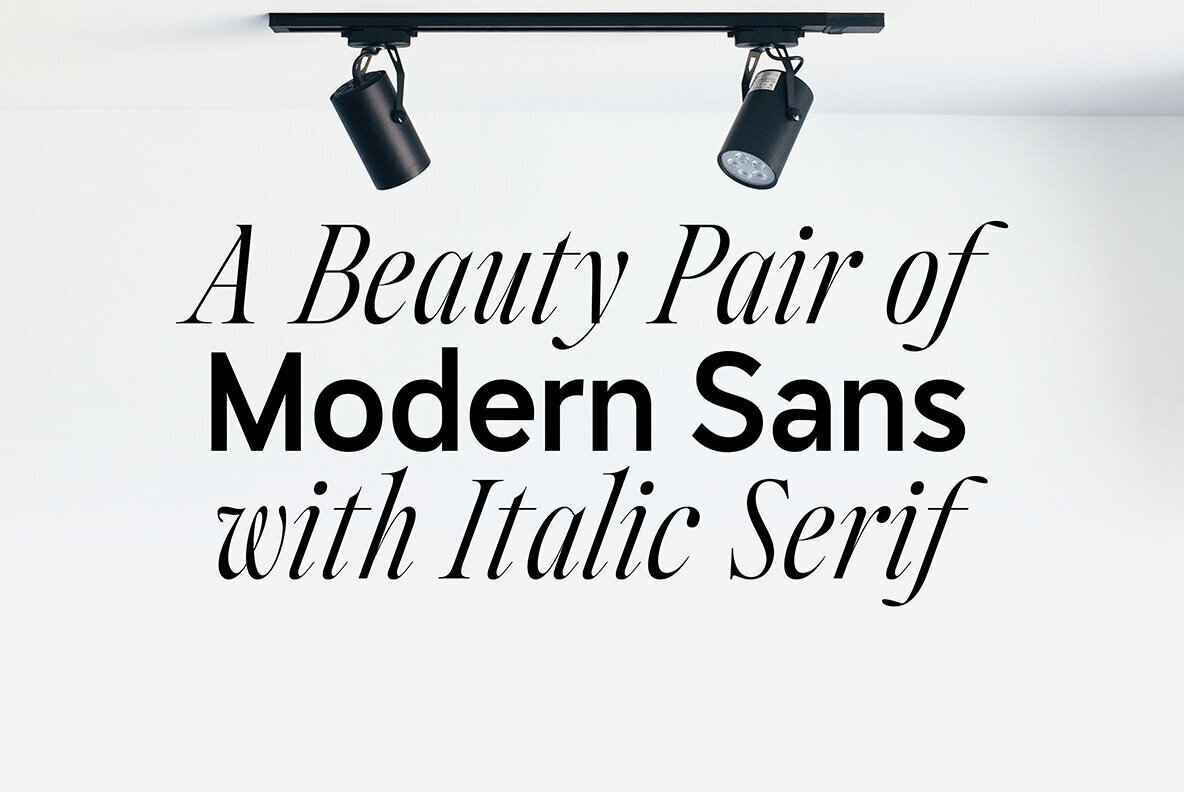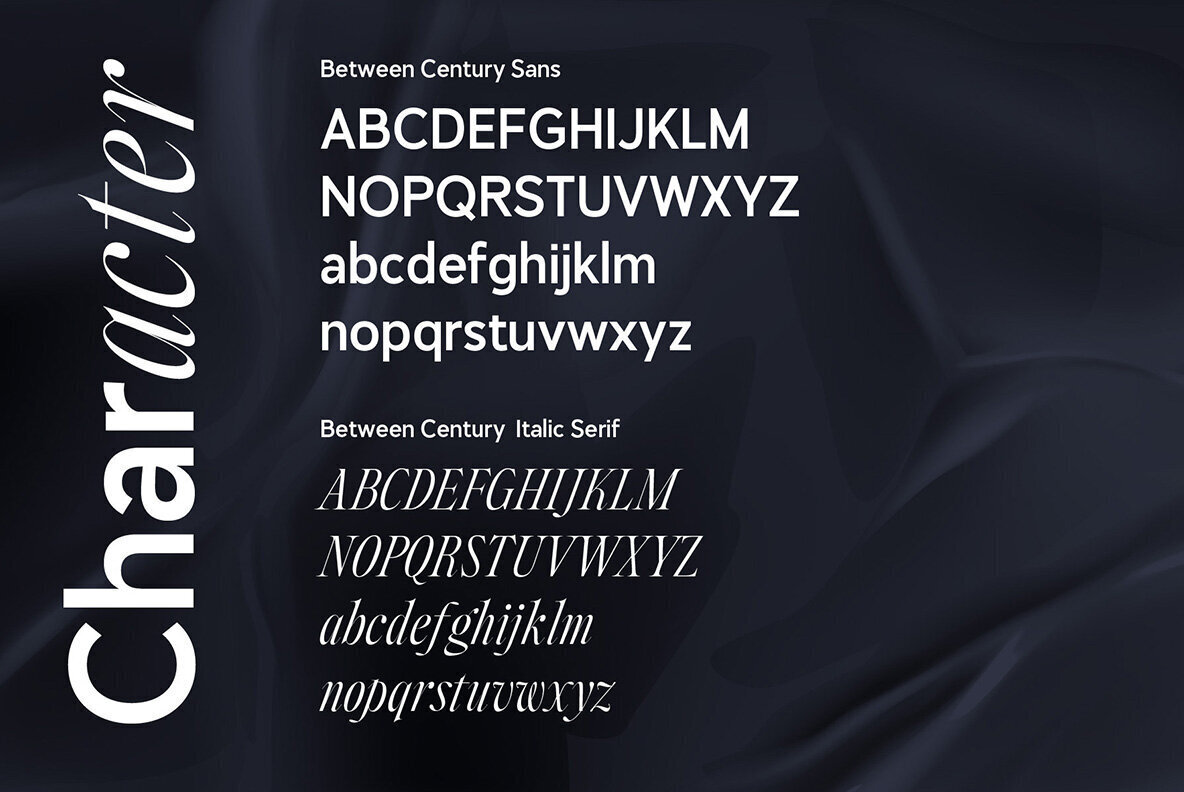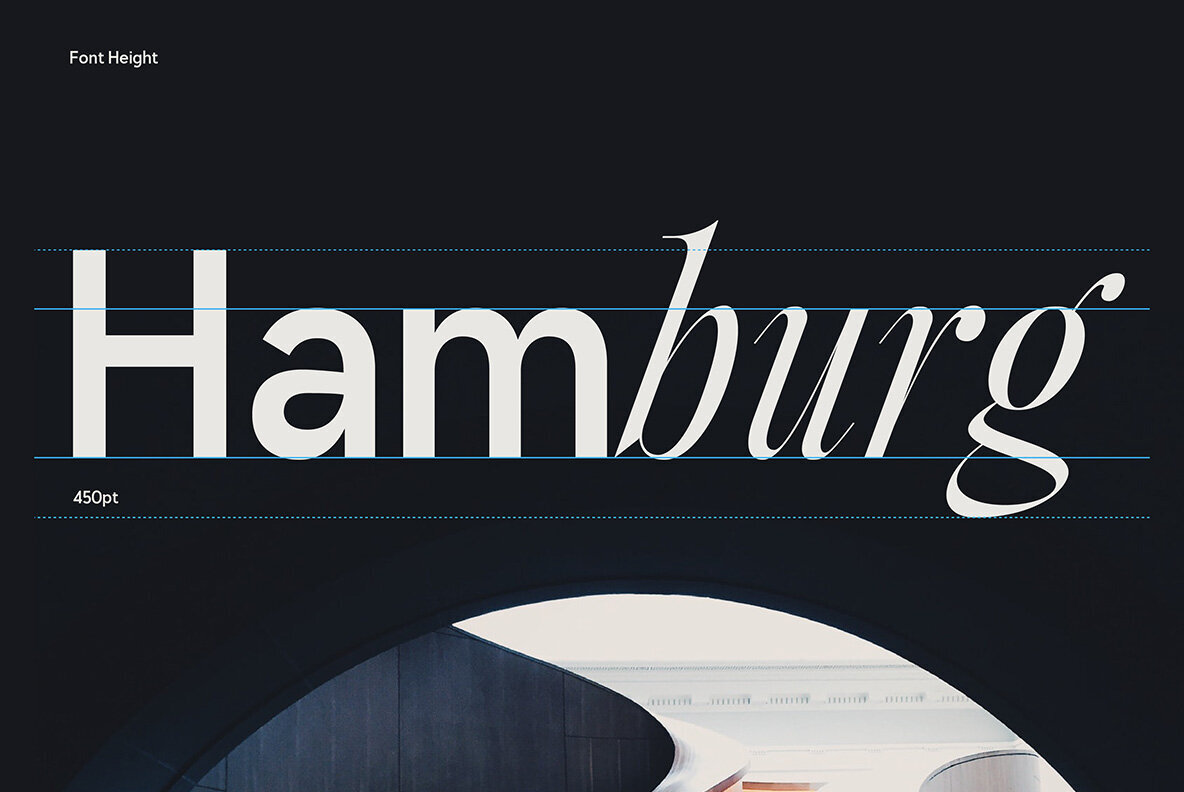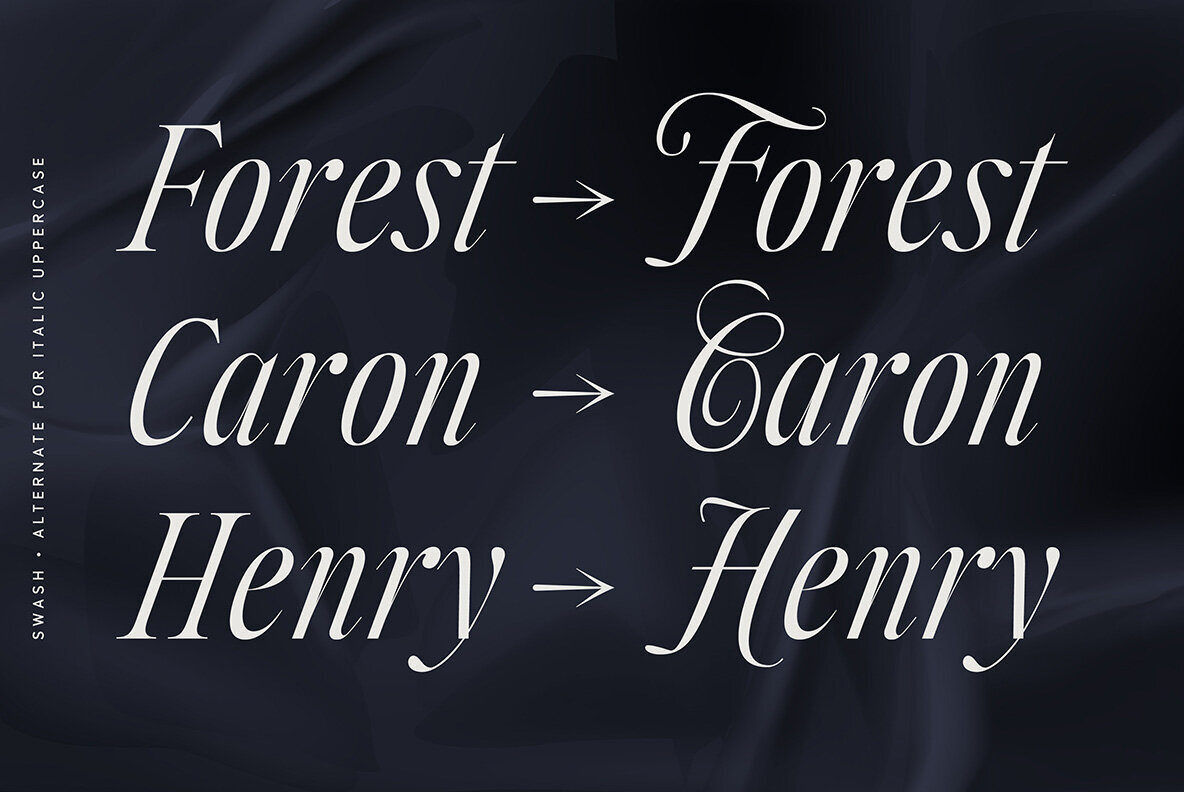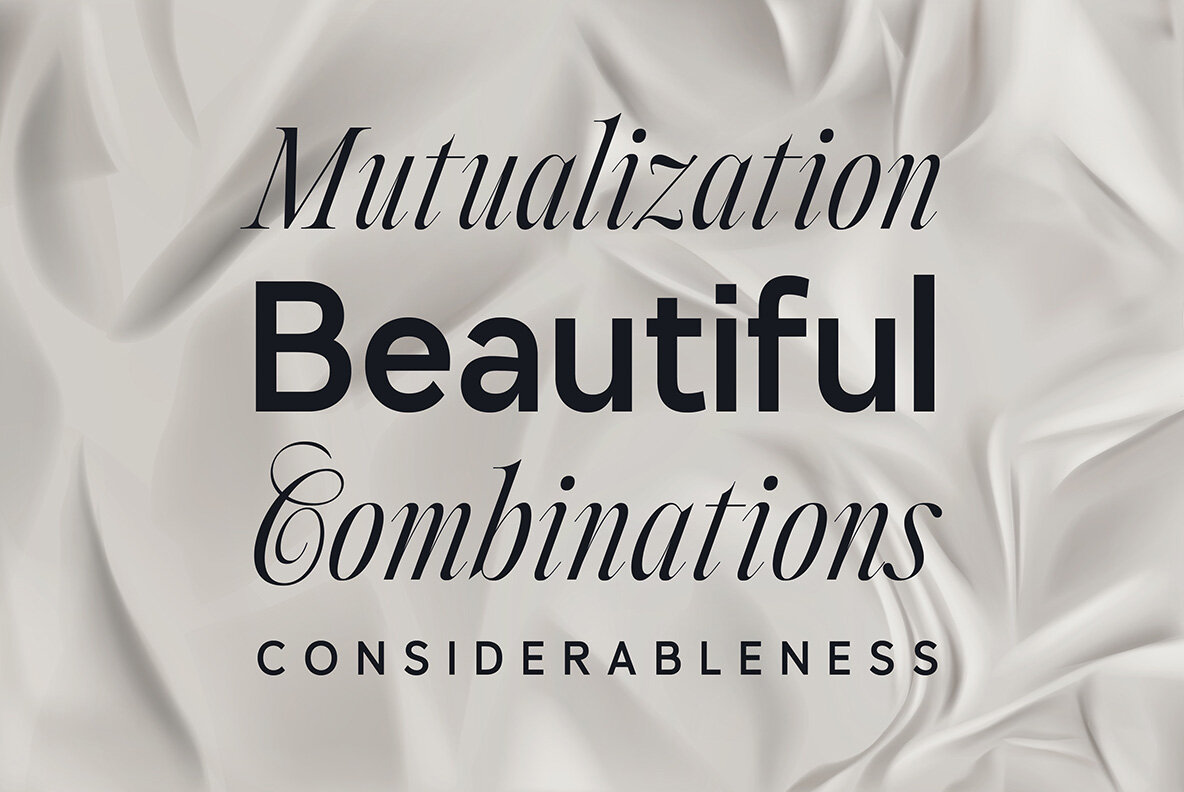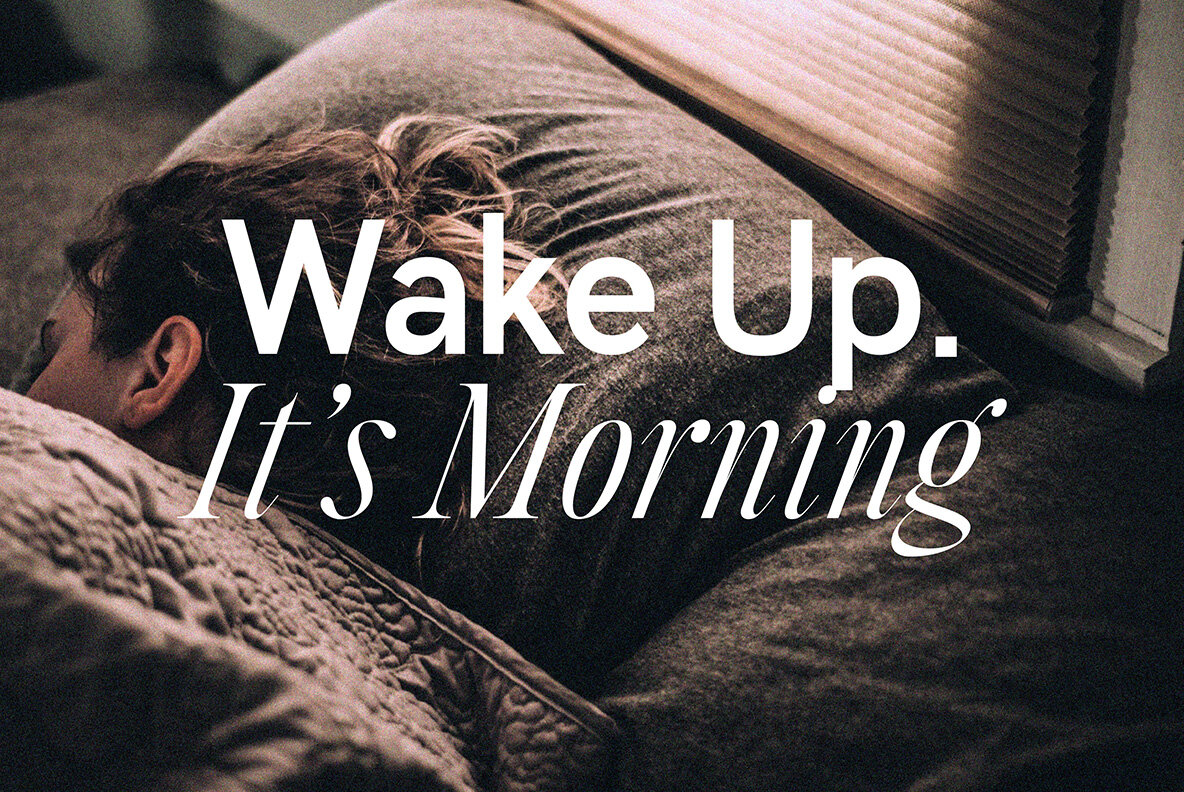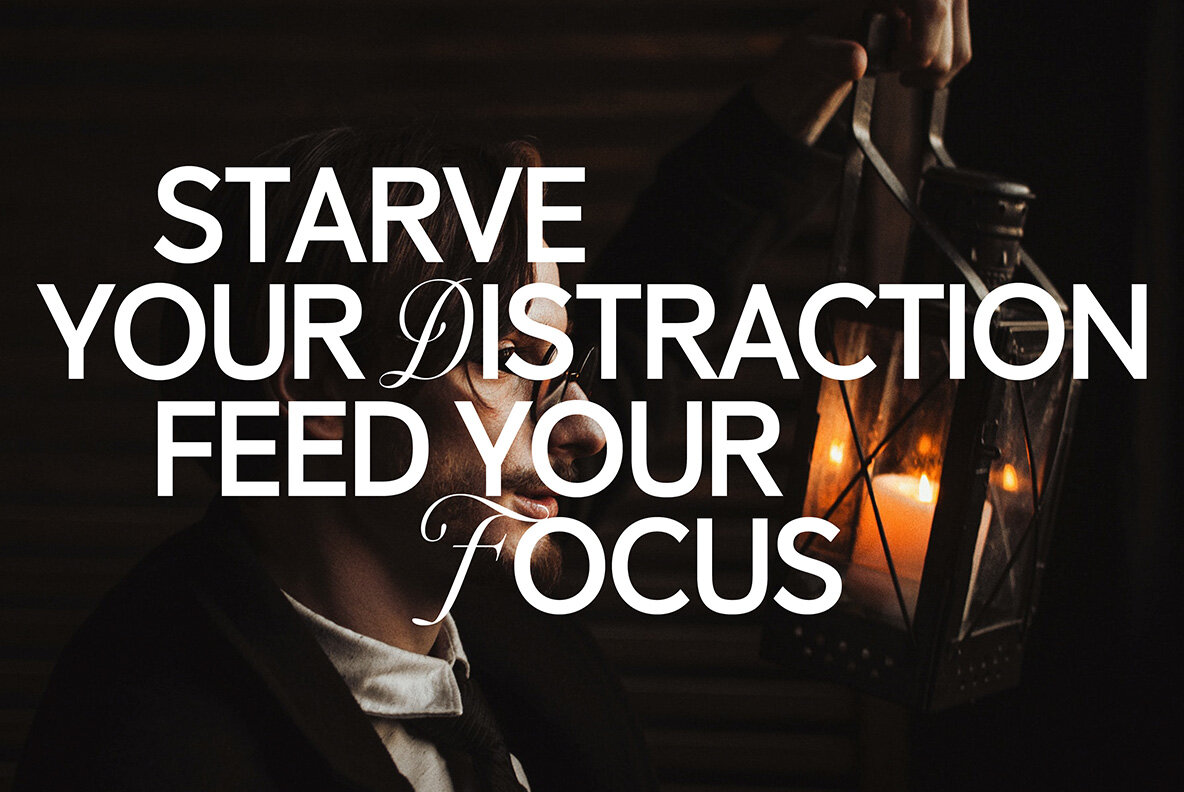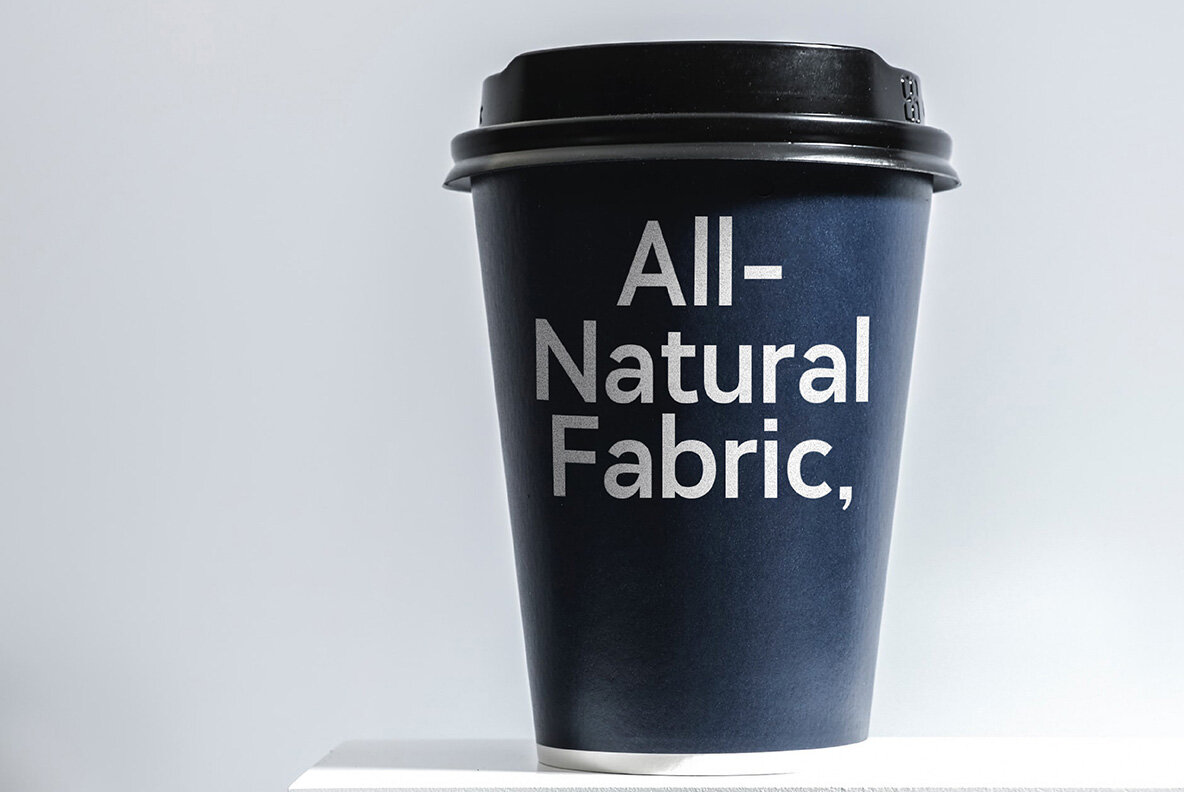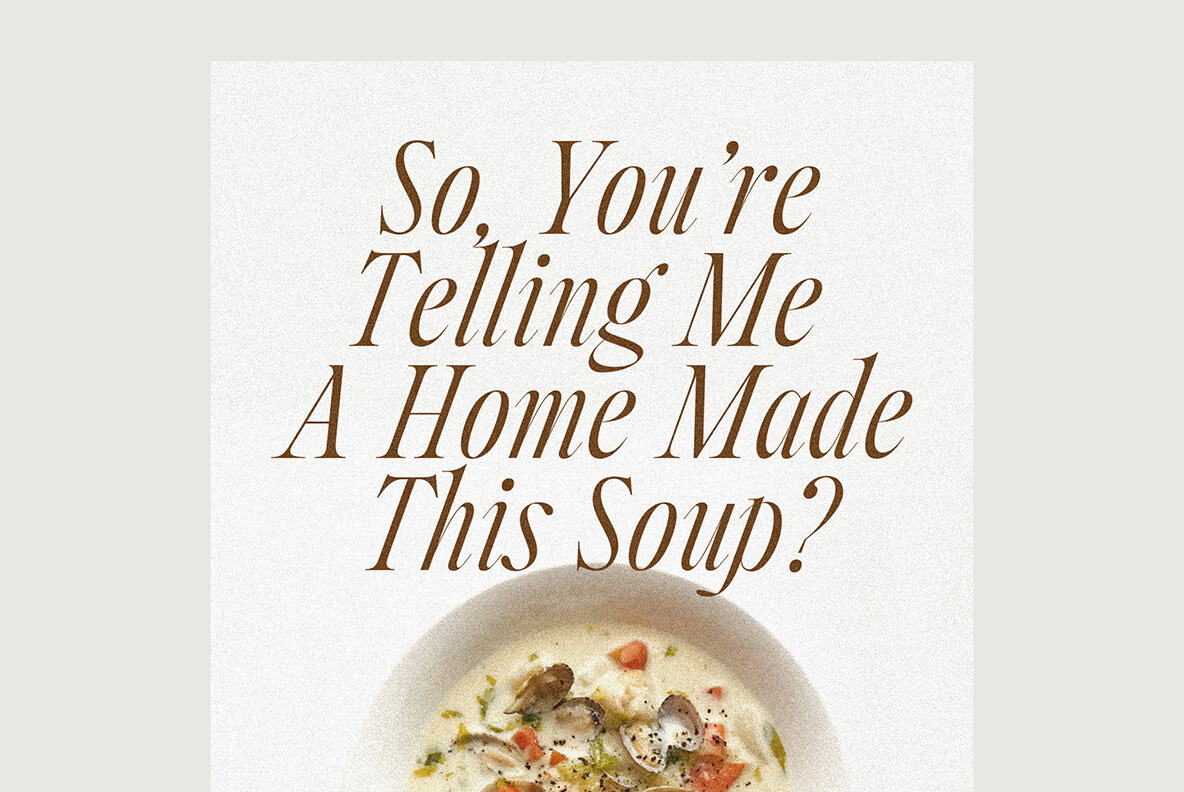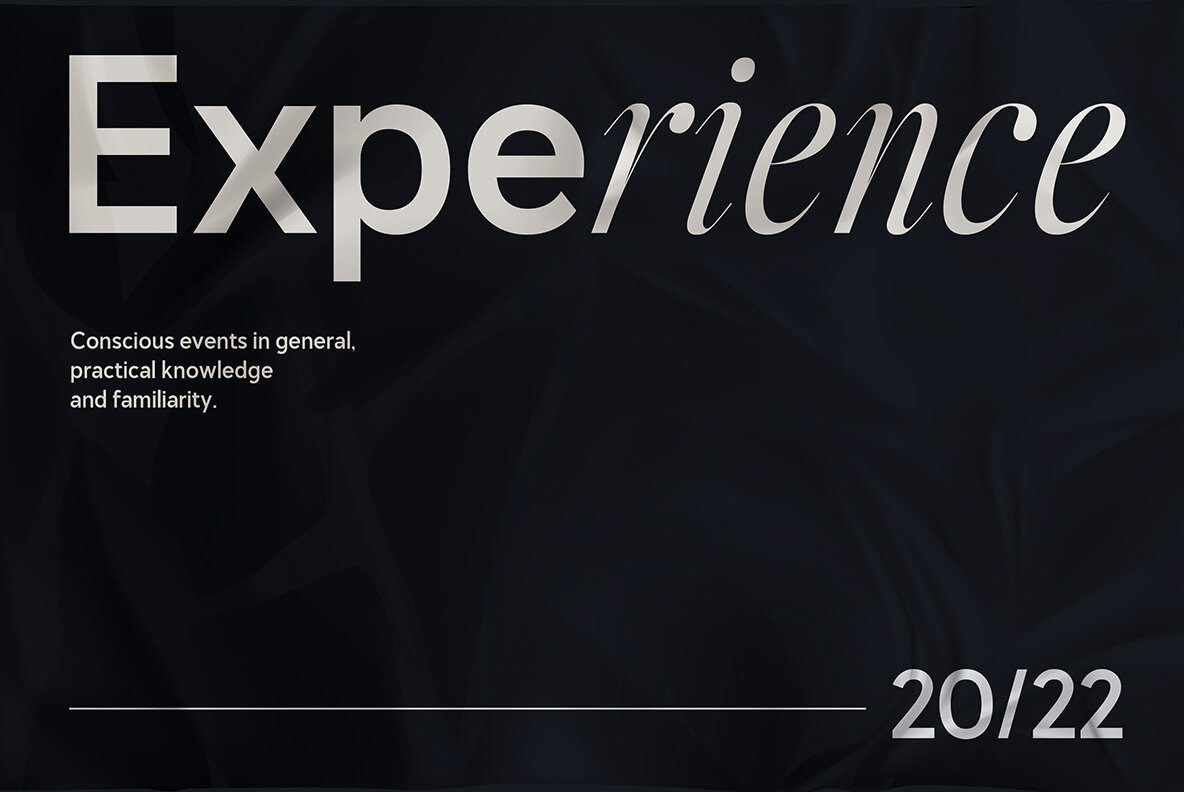
Between Century Font
Between Century Sans
Between Century Italic Serif
Between Century strikes a delicate balance between the modern and the classic, offering a unique combination that elevates any design project. This typeface features a modern sans with slightly geometric shapes, seamlessly paired with italic serifs. This versatile design empowers creative professionals to mix and match elements across letters, words, or headers, creating compelling and distinguished outcomes. Its adaptability makes it suitable for a wide range of applications, including posters, headlines, logotypes, branding, social media posts, and websites. Between Century supports a vast array of languages, including but not limited to Afrikaans, Albanian, Danish, Dutch, English, French, German, Greek, Italian, Portuguese, and Spanish, ensuring global reach and usability.Between Century: A Blend of Modern and Classic Styles